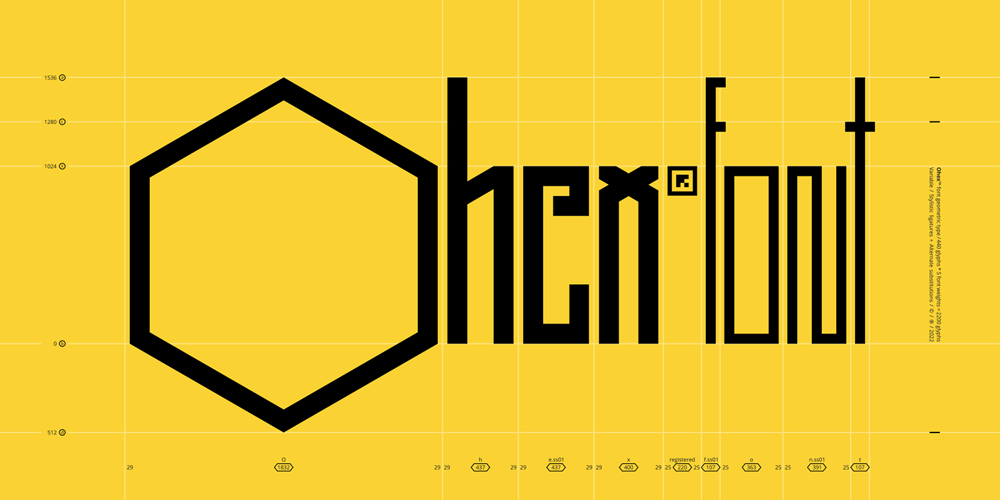
Ohex Font Family was designed by Wojciech Morzyc and published by kome.studio. Ohex contains 6 styles and family package options. Contemporary geometric typeface. Ohex™font family consists of 5 unique font styles — thin, light, regular, bold and black + VARIABLE version.Opentype features including stylistic alternates, ligatures and kerning pairs.Currency glyphs and stylish digits.Capital letters are designed on the shape of a hexagon. Lowercase letters to cooperate with them, refers to the street style look.Great for logos, posters, magazine layouts, headers, apparel and prints. -Multilanguage support covering Western, South and Central Europe.1256 Latin 1 / 1250 Latin 2: Eastern Europe / 1254 Turkish / 1257 Windows Baltic / Macintosh Character Ser (US Roman)1256 Latin 1: Afrikaans, Basque, Catalan, Danish, Dutch, English, Faeroese, Finnish, French, Galician, German, Icelandic, Irish, Italian, Norwegian, Portuguese, Scottish, Spanish, and Swedish.1250 Latin 2: Eastern Europe / 1254 Turkish / 1257 Windows Baltic : Czech, Polish, Hungarian, Croatian, Romanian, Estonian, Latvian , Lithuanian, Turkish, Slovak and Slevenian –